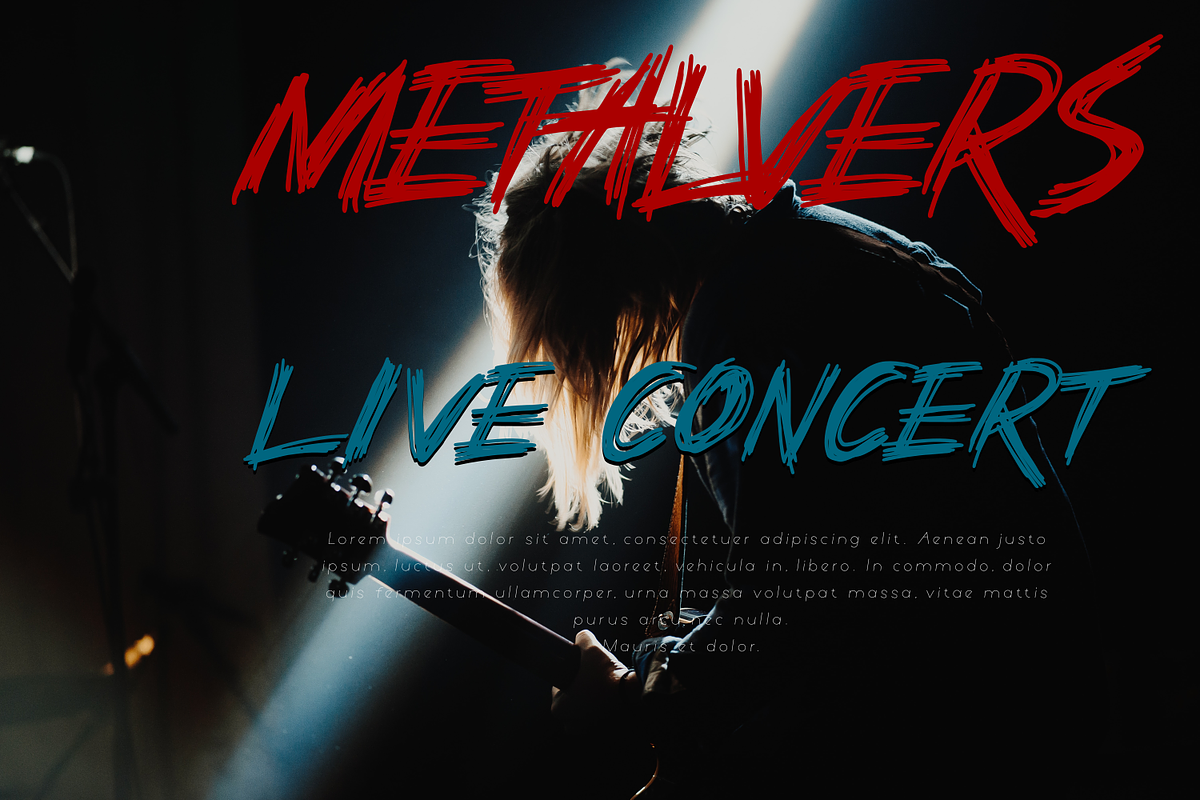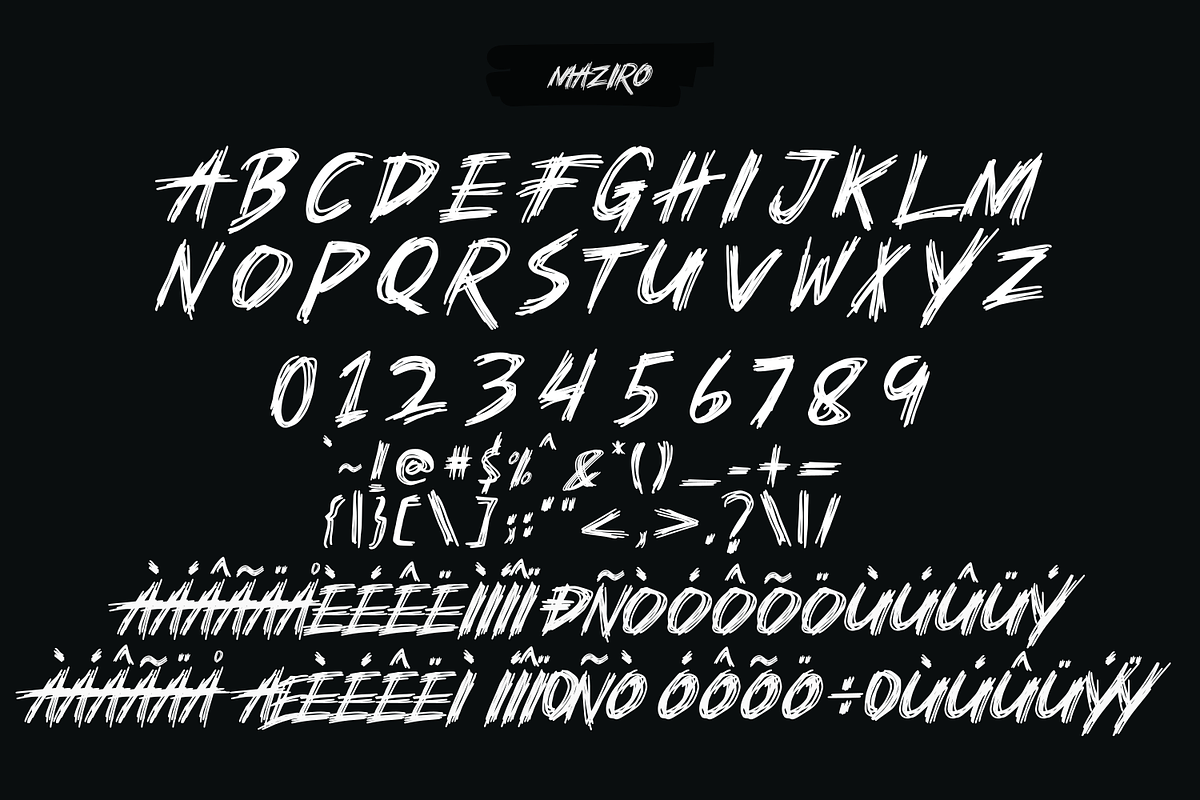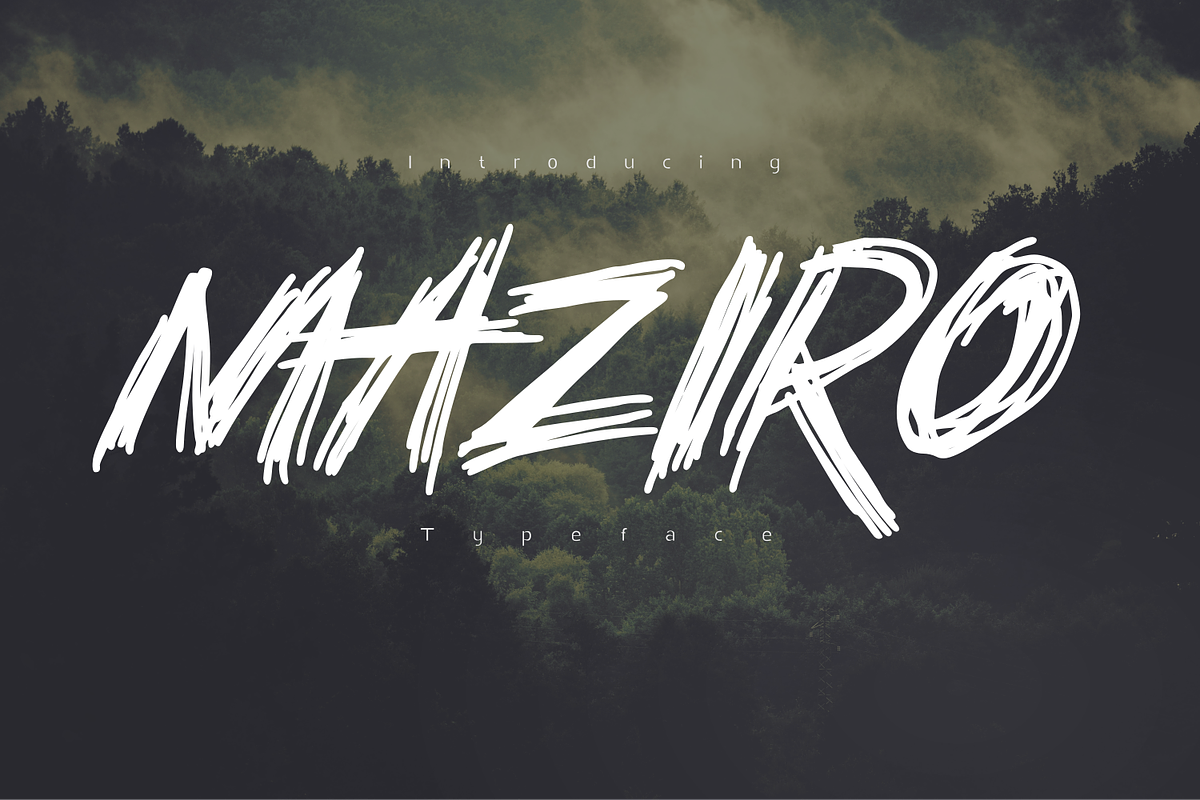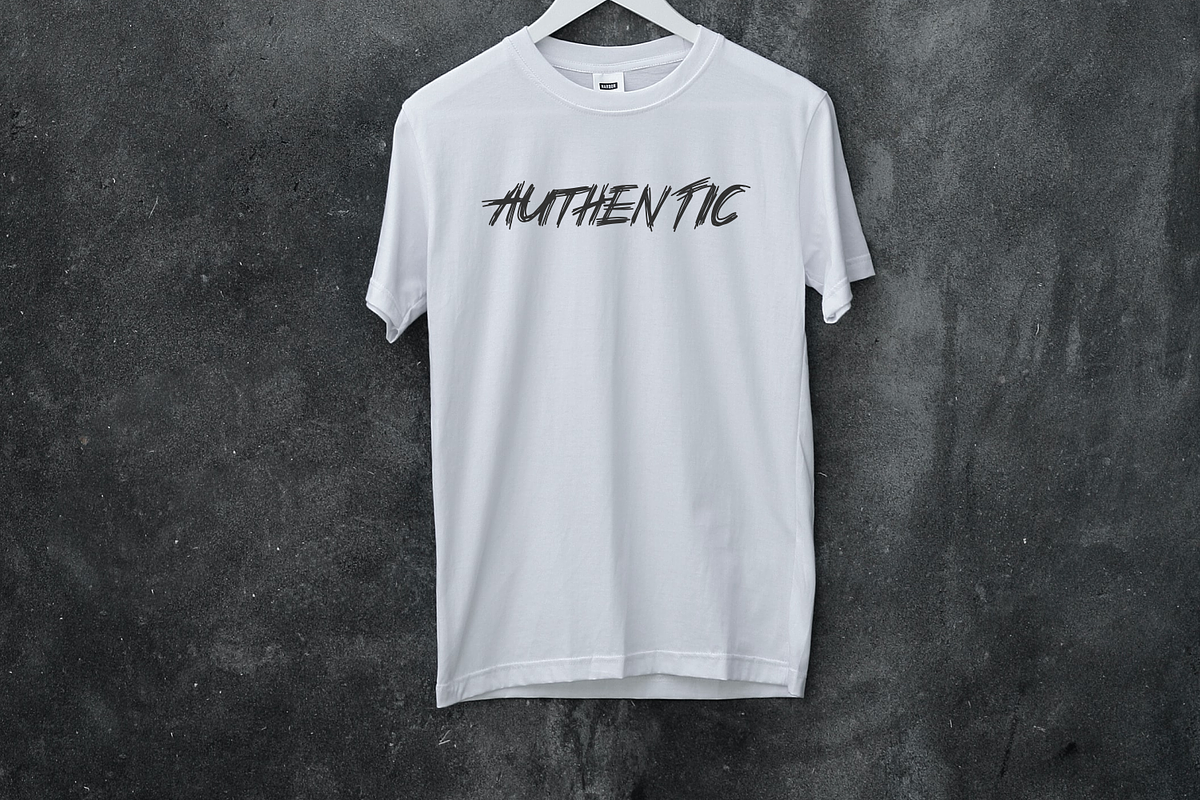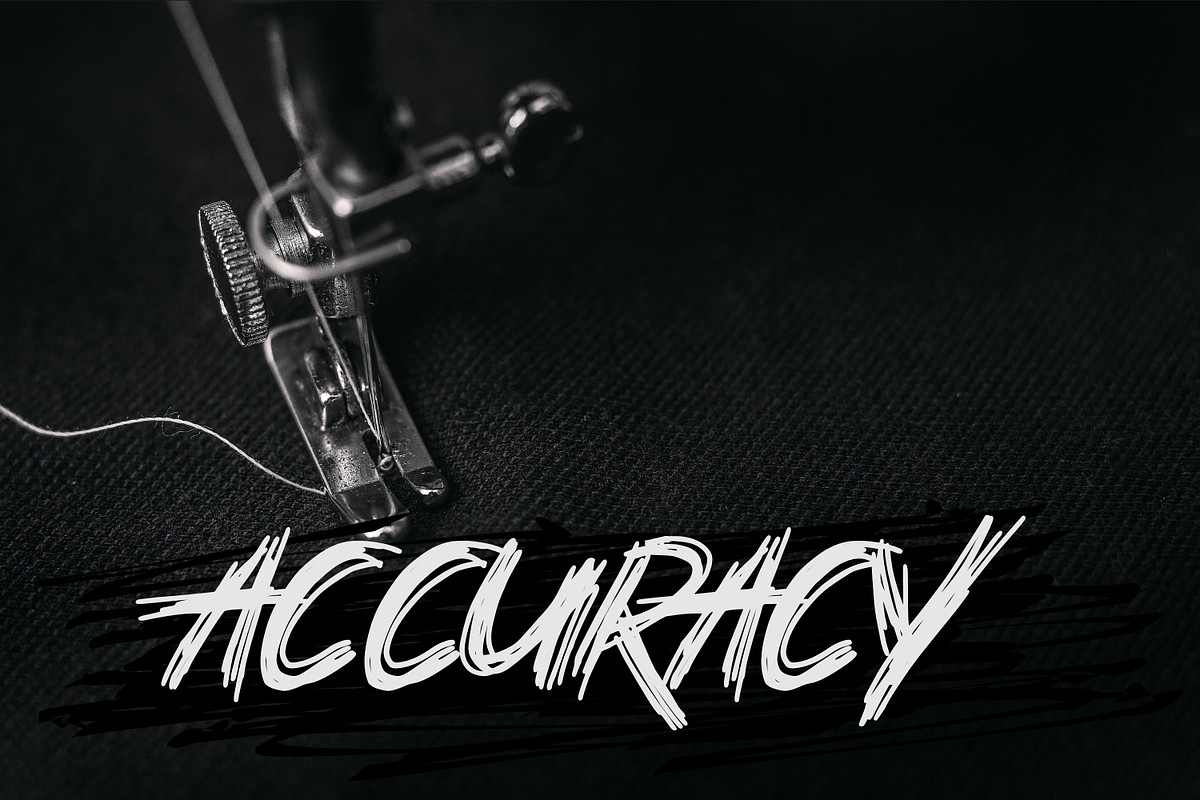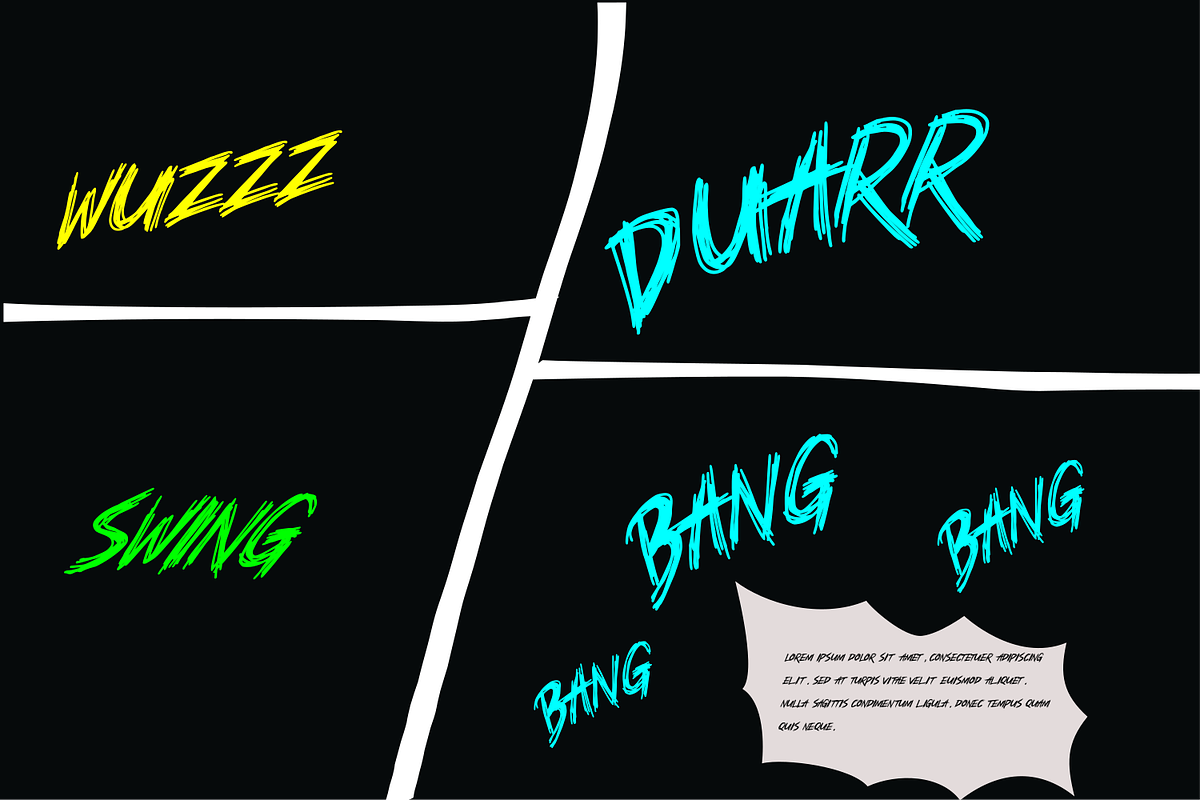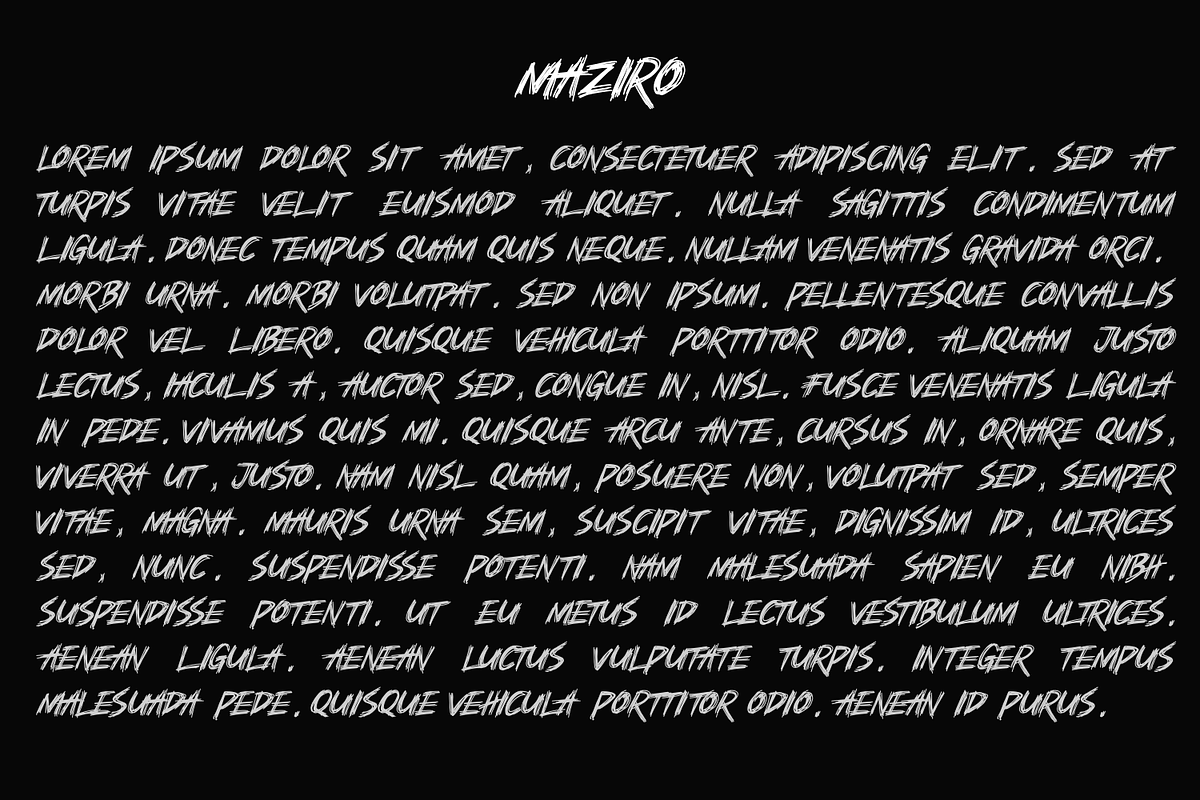
Maziro -Brush Typeface
Maziro is a cool, brushed and aggressive display font. It will look stunning on any poster flyer or print. Use this font for your designs and explore its endless possibilities.